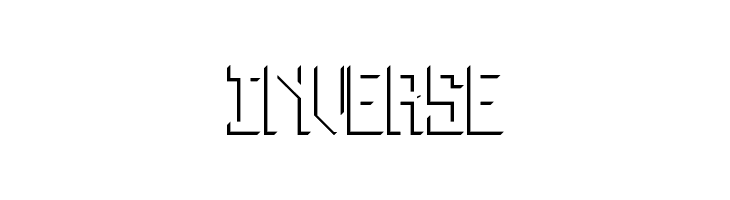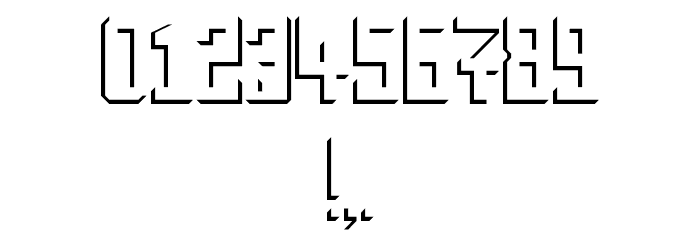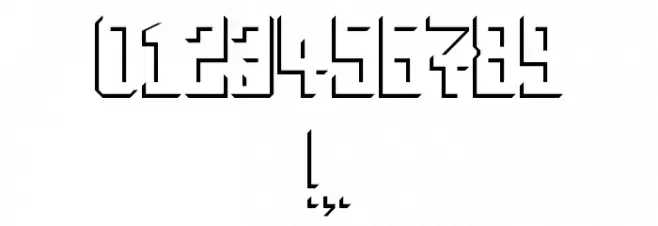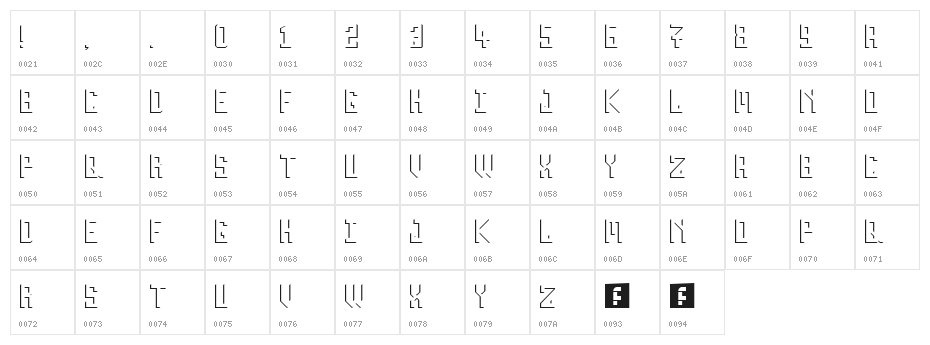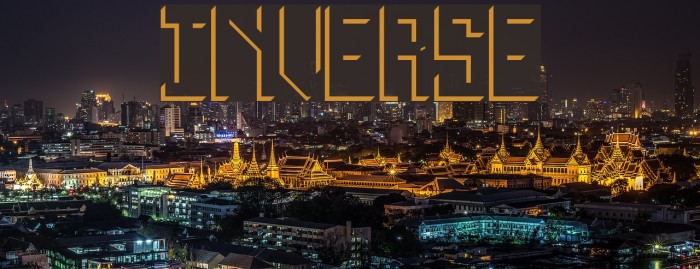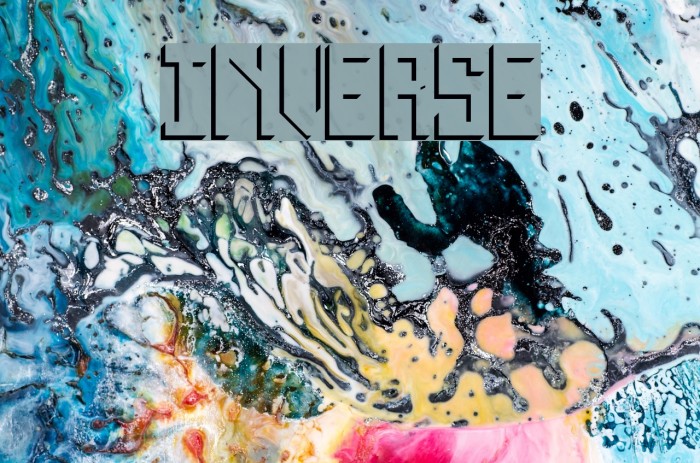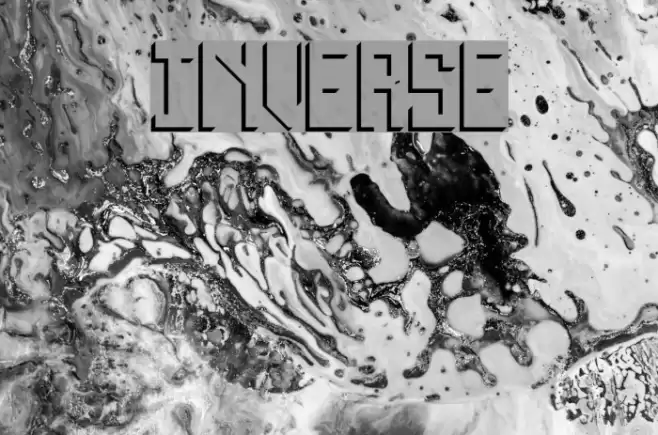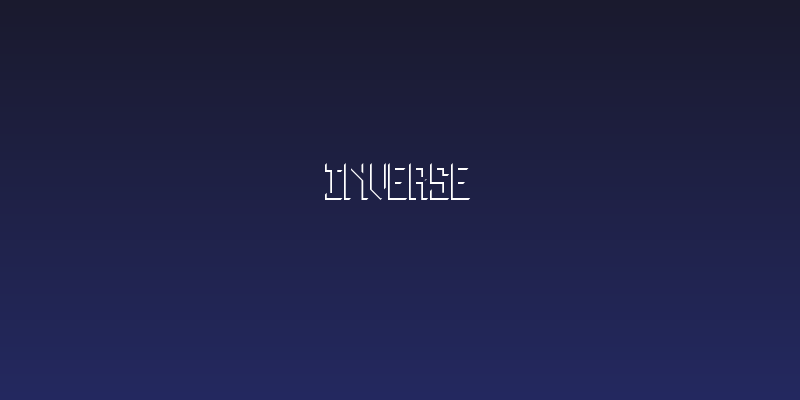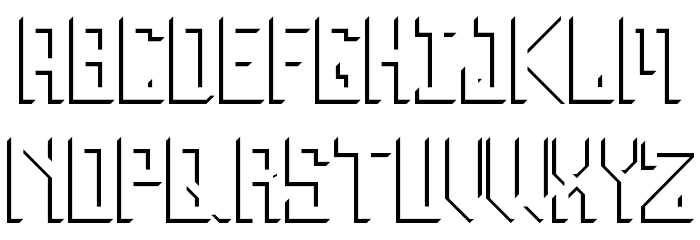
Inverse Font
Inverse Description
This font features a unique, geometric design with a futuristic and abstract aesthetic. Each character is constructed using a series of straight lines and angles, creating a fragmented appearance that is both modern and artistic. The uppercase and lowercase letters maintain a consistent style, emphasizing sharp edges and a sense of movement. Numbers and special characters follow the same design principles, ensuring uniformity across all glyphs. The font's distinct style makes it ideal for creative projects that require a bold and innovative look.
| Proposed Projects | Ideal for sci-fi themed designs, modern art posters, tech branding, and innovative product packaging. |